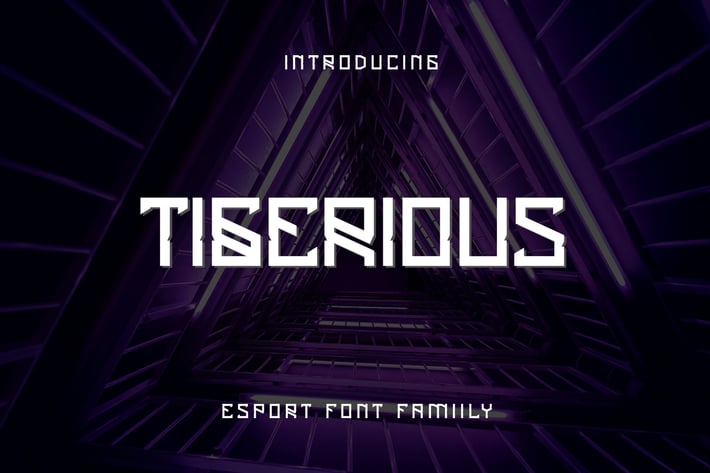
Tigerious - Modern Sport Font
Tigerious is a Modern typeface with elegant in every single letter. This font looks modern, sporty, bold, scifi, technology, and amazing.
Tigerious is the best choice for your professional design projects, including : Sport, mascot, logo, poster design, t-shirt, headline, flyer, cd cover album, quotes, business card, branding, magazines, social media, advertisements, product designs, or something that need modern or futuristic looks.